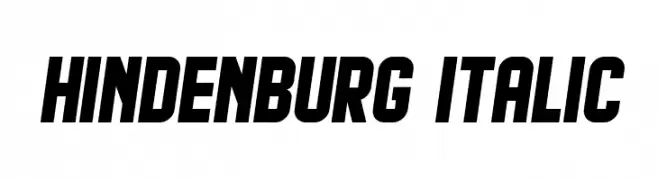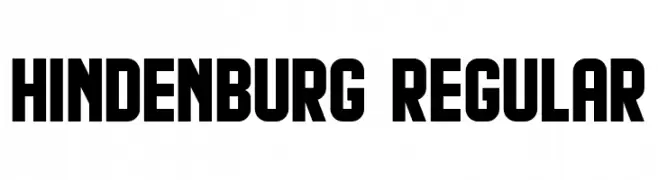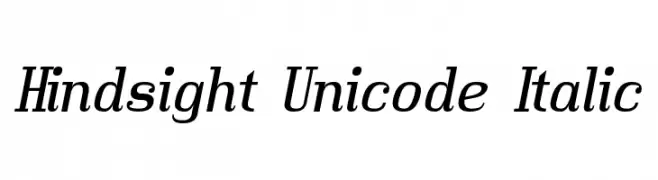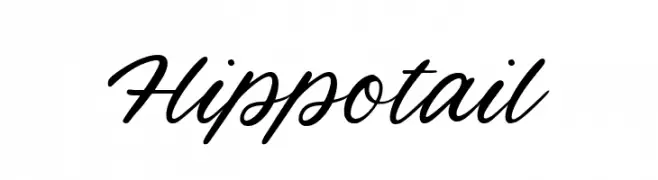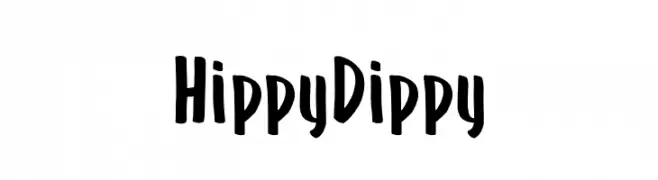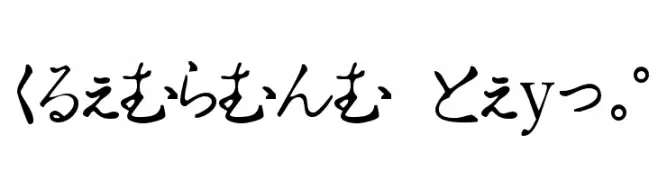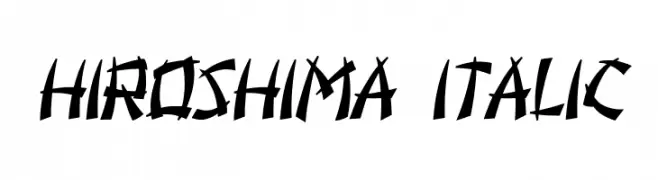
A bold, italicized font with a modern, dynamic style.
A bold, geometric font with a modern, industrial style.
An elegant italic serif font with smooth curves and a classic yet modern appeal.
A modern serif font with clean lines and balanced readability.
A classic italic font with moderate contrast and elegant, flowing characters.
A dynamic and elegant cursive script font with fluid letterforms.
A playful, bold, hand-drawn font with a retro vibe.
A smooth, rounded Hiragana script font with a modern yet traditional feel.
A bold, angular italic font with a graffiti-inspired style.